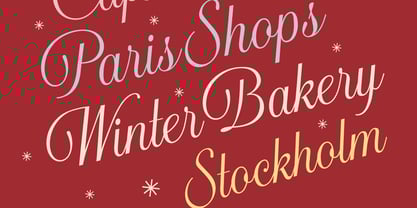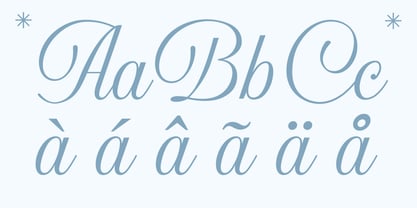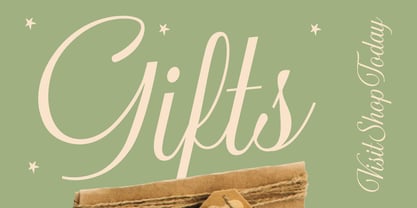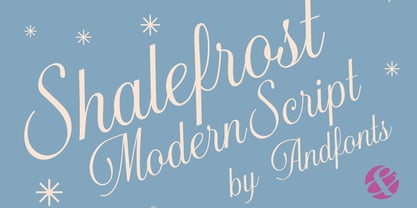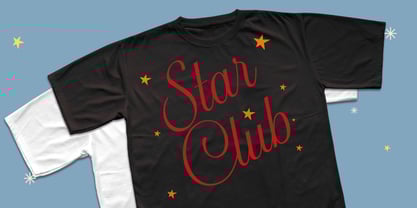
Shalefrost Nova
by Andfonts
The Shalefrost Nova Font Family was designed by Andrii Shevchyk and published by Andfonts. Shalefrost Nova contains 1 styles.
ShaleFrost Nova is a calligraphic typeface that marries the fluid grace of traditional script with a sharp, modern twist. Inspired by frost-kissed shale cliffs, its strokes carry a subtle crystalline texture—delicate yet deliberate, like ink frozen mid-flow. High contrast between thick downstrokes and hairline ascenders creates dramatic elegance, while refined, icy swashes add a whisper of winter luxury. Perfect for standout presentation titles, holiday branding, and premium packaging, ShaleFrost Nova brings seasonal sophistication without sacrificing clarity or impact.
Designers: Andrii Shevchyk
Publisher: Andfonts
Foundry: Andfonts